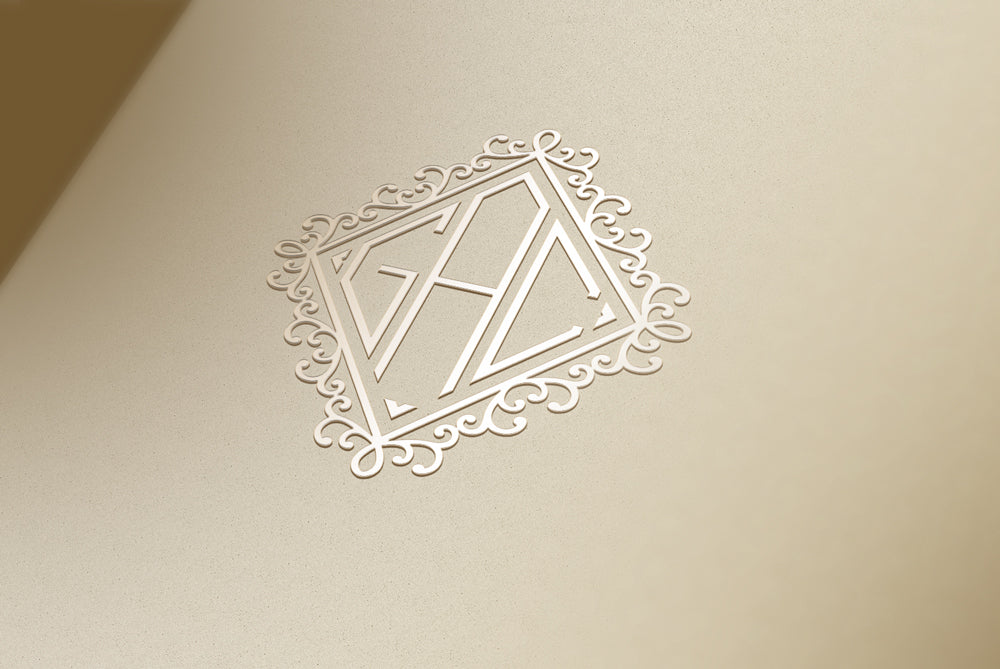
Monogram Diamond Font for Print
A new twist on an old favorite, our new Monogram Diamond features an edgy, geometric shape with beautiful clean corners. In 2-letter or 3-letter, this sharp font is perfect for that added touch of personalization.
7 additional frames create a surround to complement the font. These frames can be easily accessed by typing numbers 1-7.